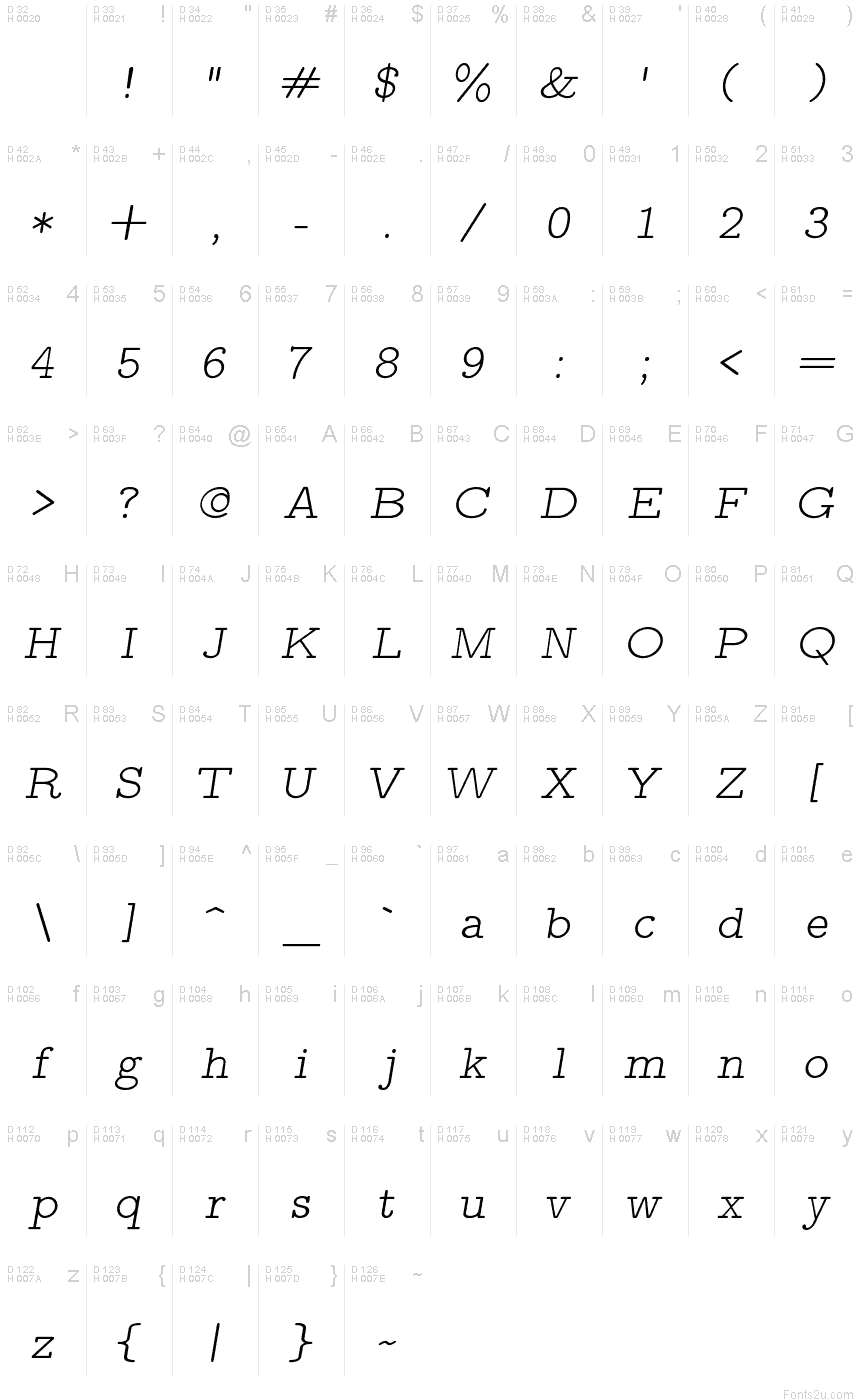
LMMonoPropLt10-Oblique from TeX users groups is a free light oblique serif with the measured look of technical typesetting. Fine strokes, restrained slab-like serifs, and a gentle rightward lean give the letters an orderly, understated texture.
Publishing is its strongest setting, particularly for mathematical book covers, academic journals, and reference material. It also suits software documentation and understated technology branding. Across these uses, the precise proportions and typewriter ancestry suggest careful, methodical work rather than ornament.
LM Mono Prop Light 10